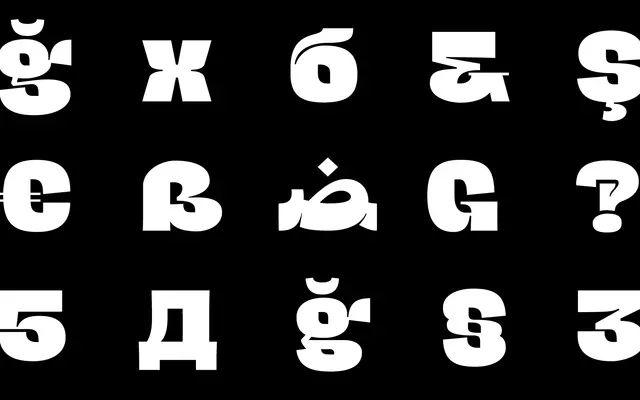
Hagrid
Zetafonts · Cosimo Lorenzo Pancini · 2019
A grotesque sans by Cosimo Lorenzo Pancini that draws on vernacular and experimental letterform traditions to build a family with genuine typographic personality across display and text cuts.
Built on grotesque structure but deliberately inflected with calligraphic counterspaces, inverted contrast and brutalist shapes, it balances oddness and usability across 27 static styles and four variable fonts. Originally a display-only release from 2019, a 2025 expansion added the Hagrid Text subfamily with refined proportions and optimised spacing, plus a new Black style with fully closed counterspaces. Script support spans Extended Latin, Cyrillic, Greek and Arabic, and a Monsters stylistic set transforms individual letters into creature-like forms.
A grotesque sans that intentionally blends inverted contrast, calligraphic counterspaces and brutalist forms into its structure, making it a quirky but grounded member of the grotesque tradition.